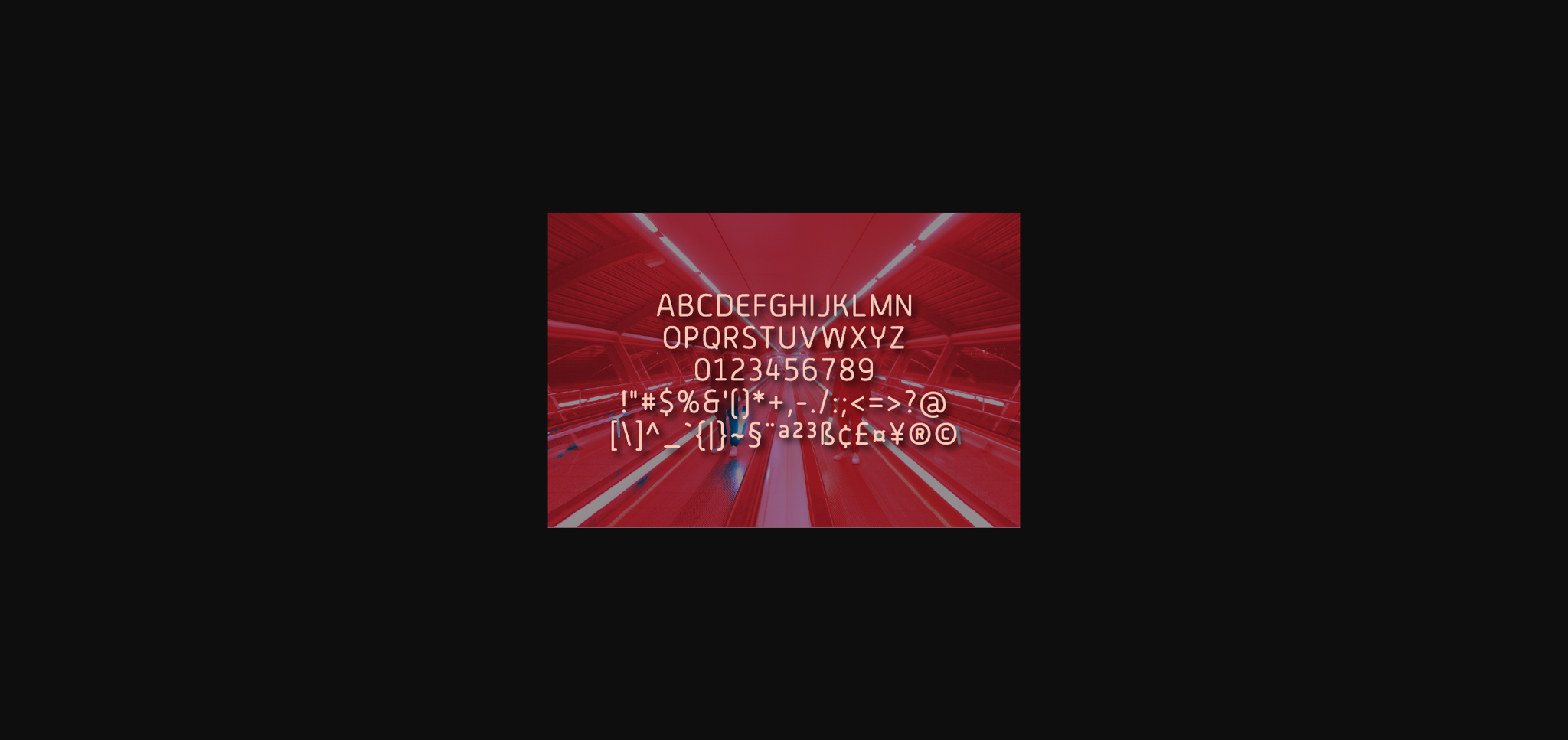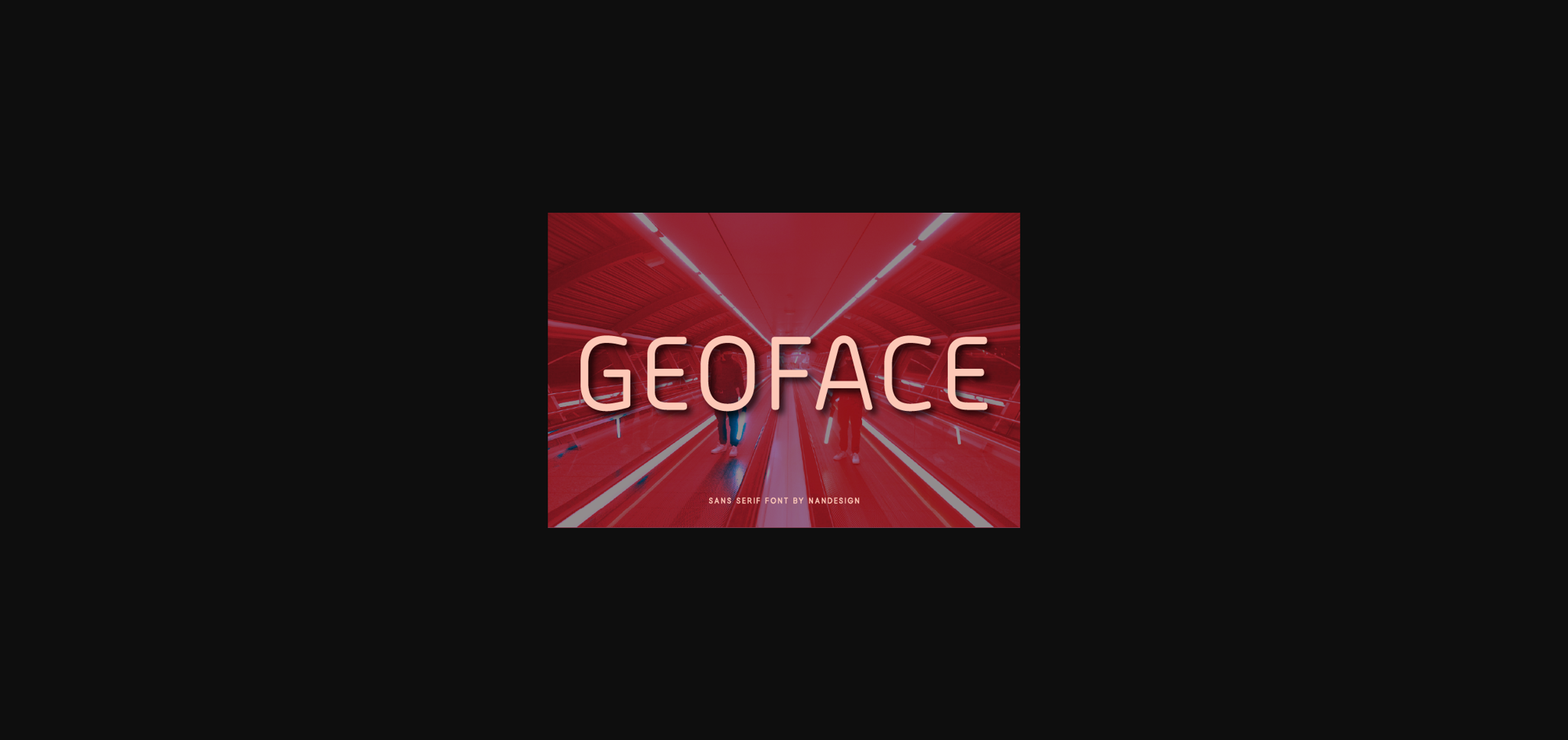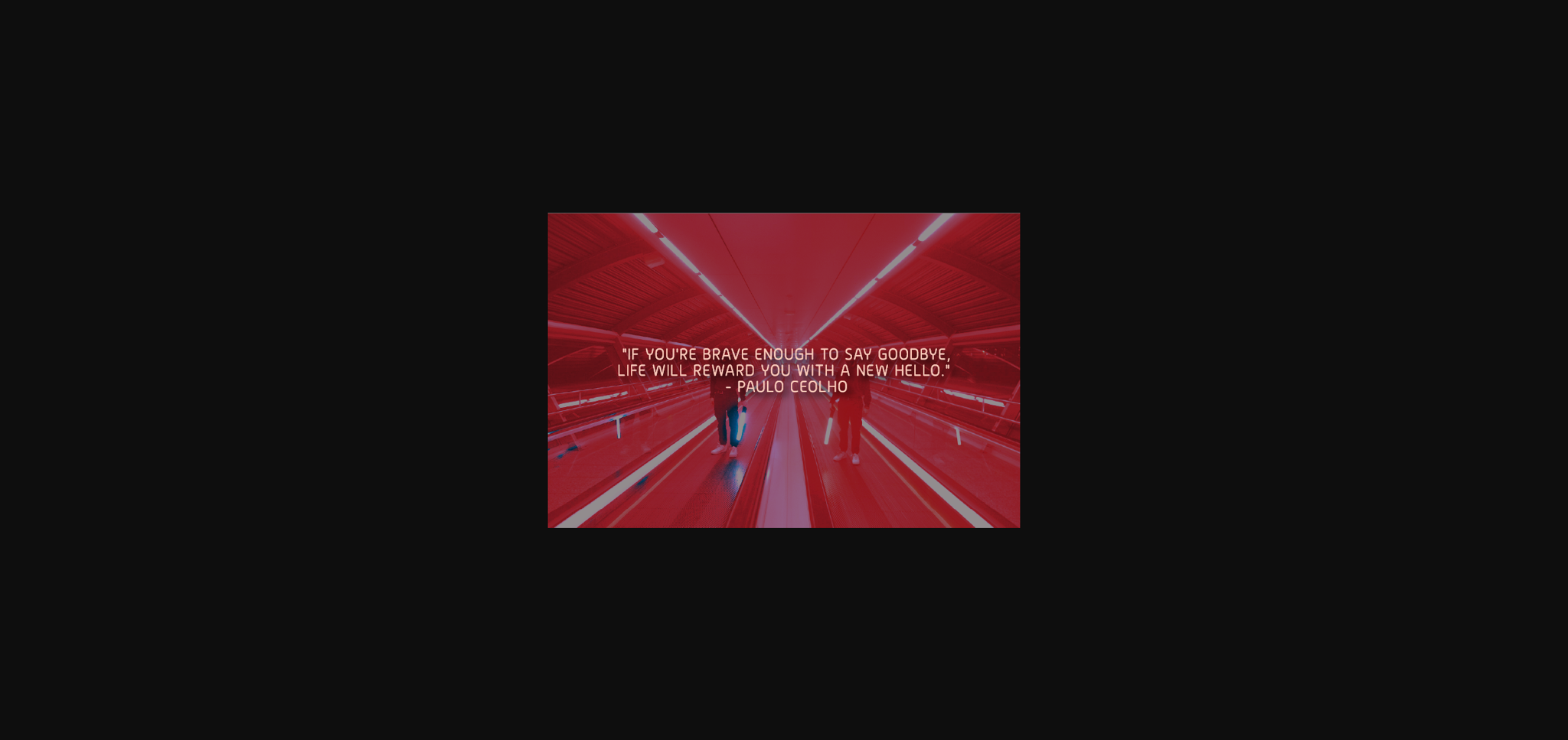
Geoface is a simple and tall sans serif font. Suitable to a wide variety of designs due to its neat style, Geoface has the potential to become your favorite go-to font, no matter the occasion!